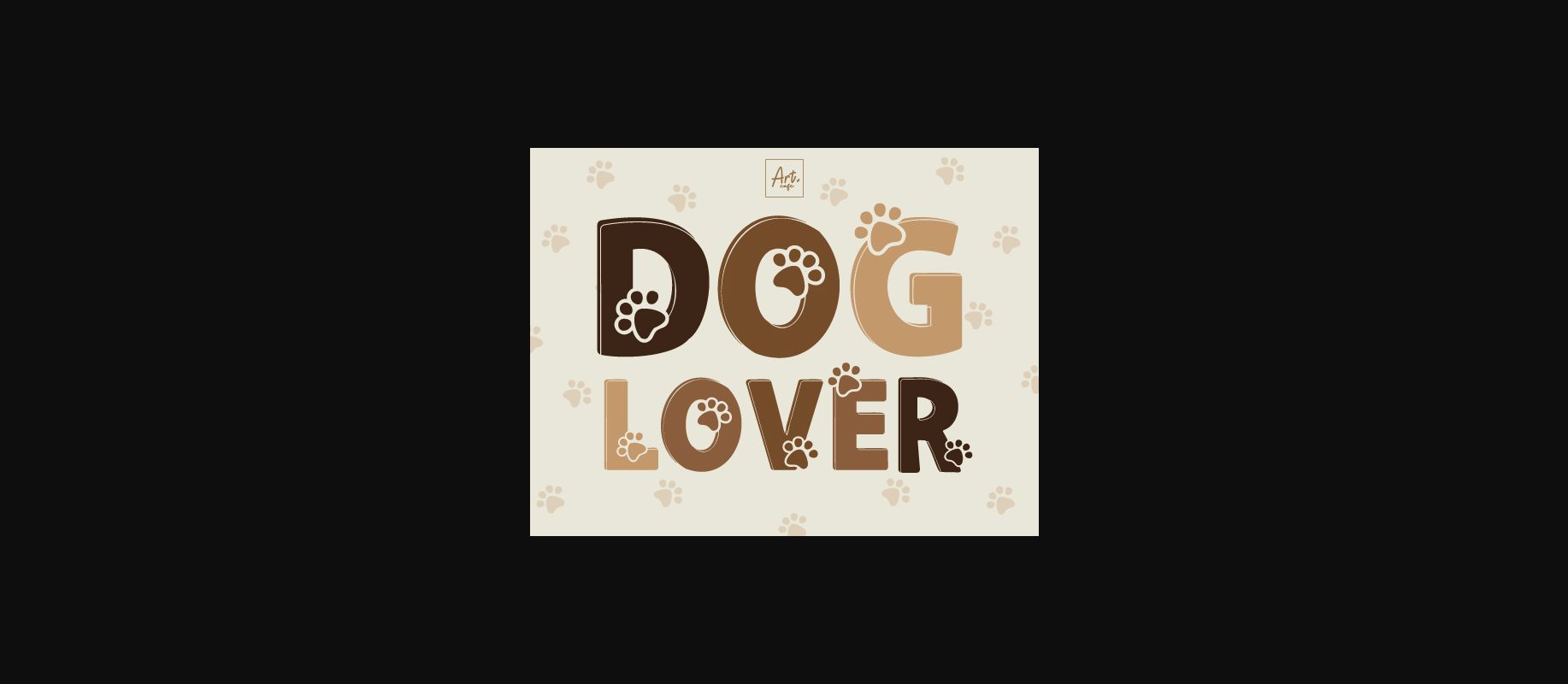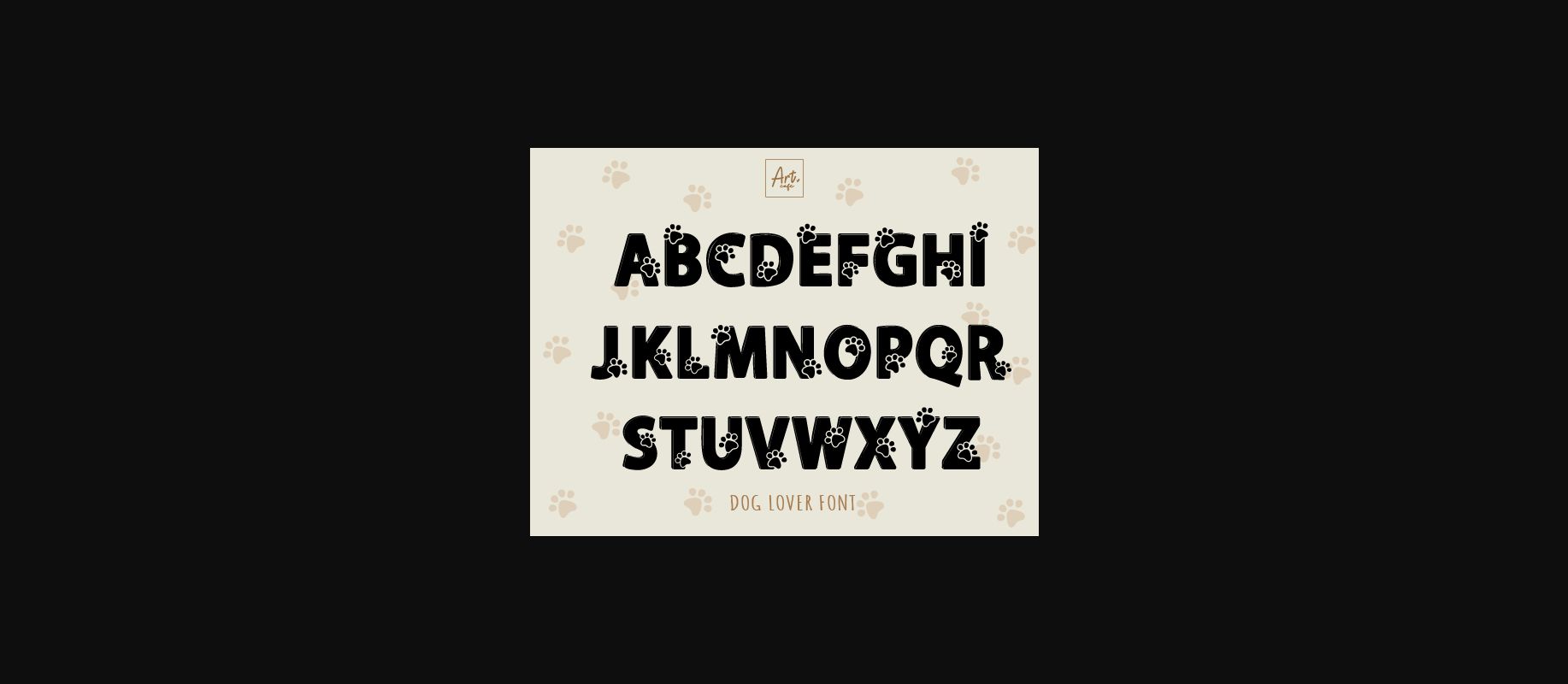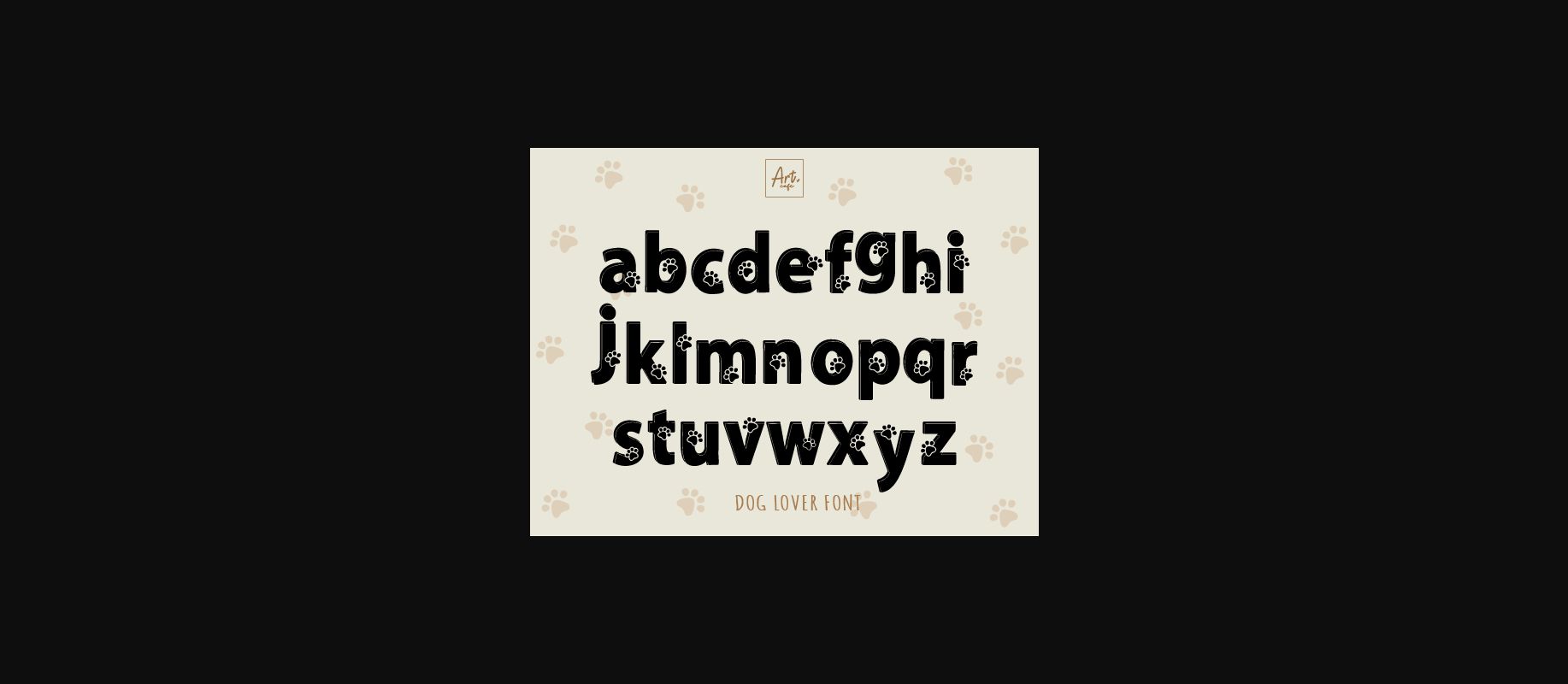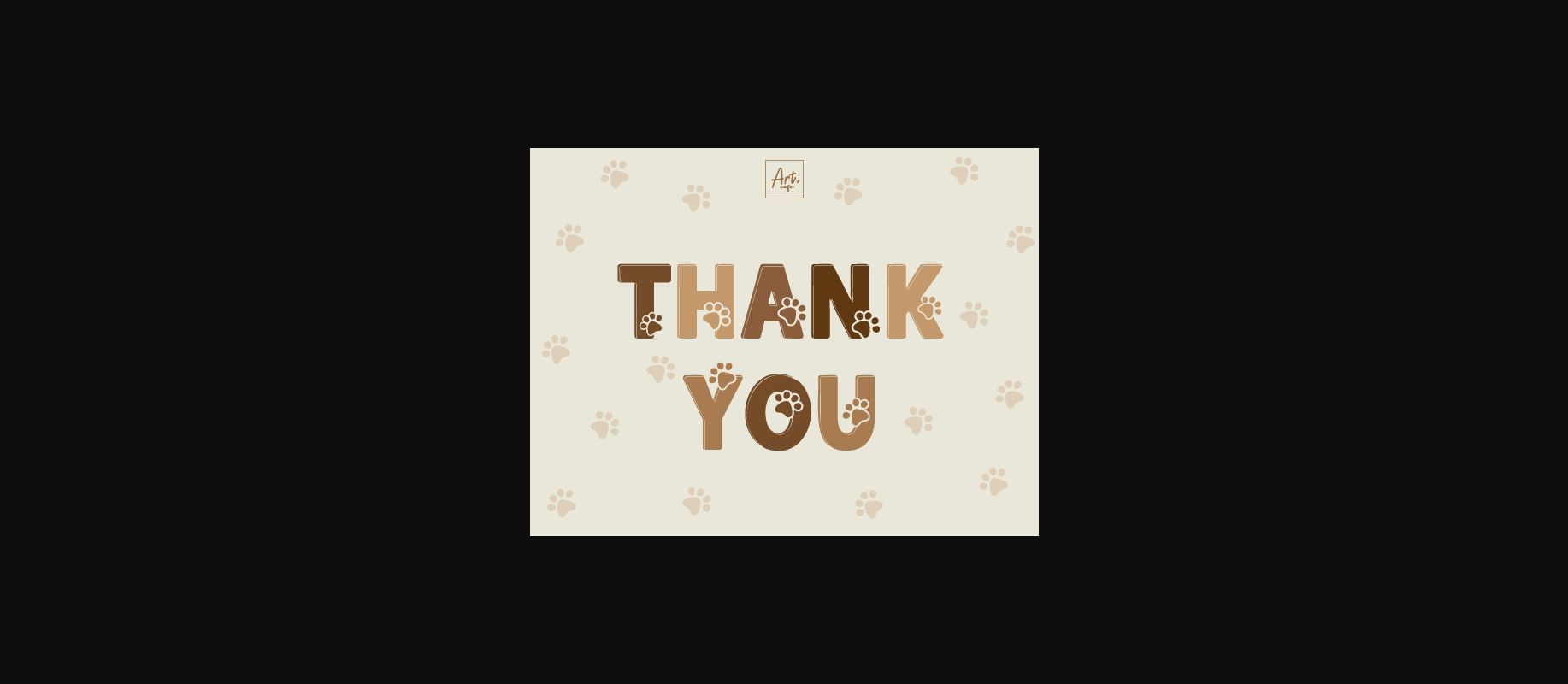
About Dog Lover Font
Dog Lover font is cute and suitable for dog lover and kids. This font is bold, it offers support for all characters of the English language for display font.
It can be used for any design project e.g. posters, t-shirts, mugs, kid’s projects, planners, stickers, home decor, etc.